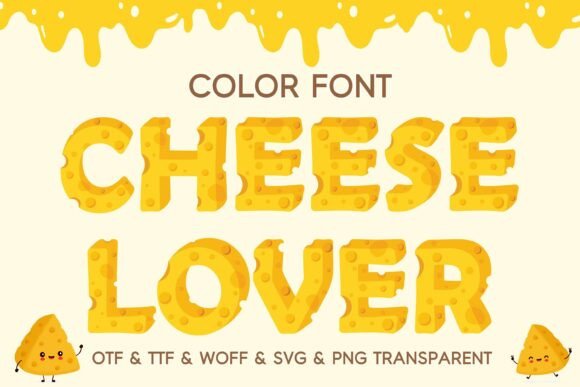
Cheese Lover Font: A Playful Addition to Editorial Design
A Font with Personality
Cheese Lover is more than just a font—it’s an invitation to bring charm and character to your editorial work. With its playful Cheese Alphabet Letters, Cheesy Numbers, and Punctuation, this Color Font adds a unique visual texture that stands out in both digital and print formats. Its whimsical style makes it ideal for creators who want to infuse their content with a touch of fun without compromising readability.
Enhancing Visual Hierarchy and Brand Identity
In editorial design, visual hierarchy plays a crucial role in guiding the reader’s eye and reinforcing brand identity. Cheese Lover excels in this area by offering a distinctive typeface that can be used strategically across various sections of a publication. Whether it's for a blog header, a magazine cover, or a newsletter title, the font’s bold and quirky aesthetic helps create a memorable impression.
Perfect for Headings and Cover Text
As a display font, Cheese Lover shines when used for headings and cover text. Its exaggerated letterforms and playful punctuation make it perfect for grabbing attention at first glance. For instance, using it on the cover of a lifestyle blog or a recipe ebook can immediately set the tone for a lighthearted and engaging read.
Supporting Content Layouts and Reader Engagement
The versatility of Cheese Lover extends beyond just headlines. It can be used as accent typography in quote graphics, chapter openers, and pull quotes to add visual interest without overwhelming the reader. In a digital magazine or printable guide, this font can help break up long blocks of text and maintain a dynamic layout that keeps readers engaged.
Font Pairing for Editorial Use
To ensure a balanced design, Cheese Lover works well when paired with a readable serif or sans-serif font for body copy. For example, pairing it with a clean sans-serif font like Montserrat or Lato can create a strong contrast that enhances legibility while maintaining a cohesive design language. This combination is especially useful for newsletters, guides, and online articles where both style and functionality are important.
Readability Across Platforms
While Cheese Lover has a playful personality, it's designed with readability in mind. The font maintains clarity even at smaller sizes, making it suitable for screen reading, PDF exports, and mobile layouts. When used in print, its textured elements add depth without sacrificing legibility. This makes it a great choice for content creators who need to deliver high-quality designs across multiple platforms.
Practical Applications in Publishing
From lifestyle blogs to wedding guides, Cheese Lover offers endless possibilities for creative use. Imagine using it as a logo design for a food blog, or incorporating it into a printable planner to give it a personalized touch. It also works well for course creators and digital product designers looking to build a unique brand identity through typography.
Multilingual Support and Customization
If you're working with international audiences, it's worth checking whether Cheese Lover supports multilingual characters. Many modern fonts include ligatures, alternates, and weights that can be customized for different languages and design needs. This flexibility ensures that the font remains relevant and adaptable across a wide range of editorial projects.
Conclusion
Cheese Lover is more than just a creative font—it's a tool that can elevate your editorial design and enhance reader engagement. Whether you're crafting a lifestyle blog, designing a digital magazine, or building a brand identity, this font offers the right balance of style, readability, and versatility. By integrating it thoughtfully into your design workflow, you can create content that not only looks great but also resonates with your audience.